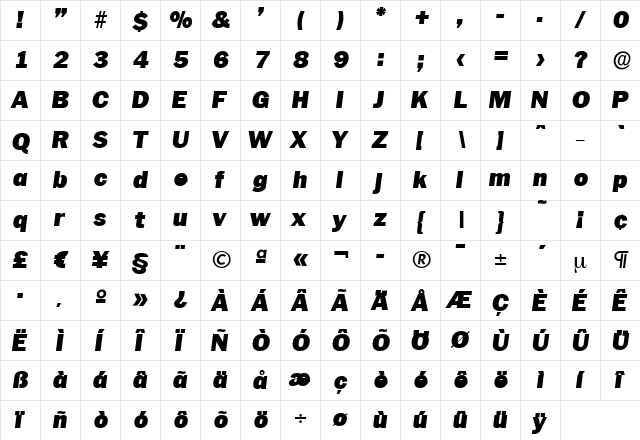
CarlBecker-Black Italic
Design Context for CarlBecker-Black Typeface
CarlBecker-Black offers clean, dependable letterforms without strong stylistic allegiance, making it a practical choice for designers who need flexibility. Its italic angle brings a sense of urgency and motion to the letterforms.
Pro Tip: Use CarlBecker-Black for emphasis, pull quotes, and subheadings where its slanted energy can add rhythm to the layout.